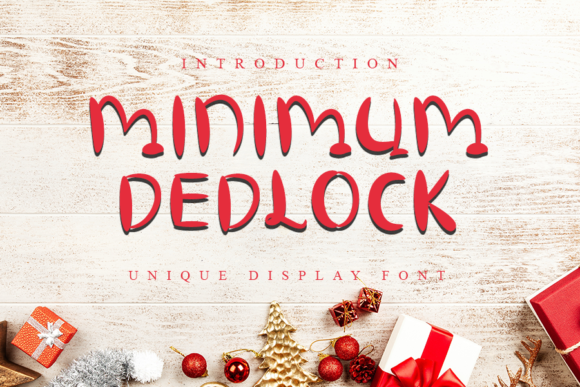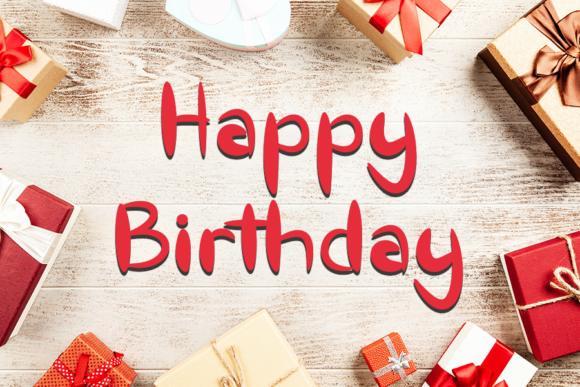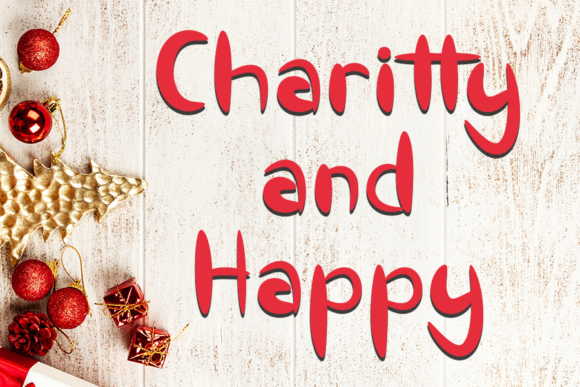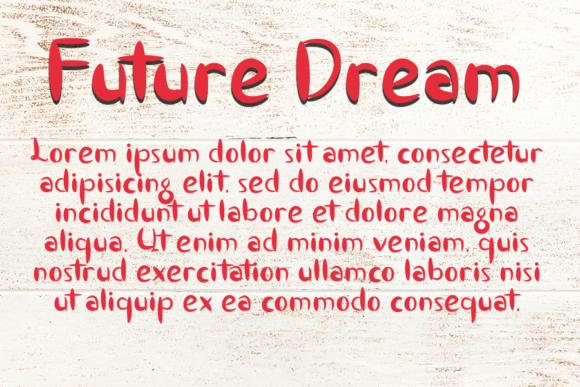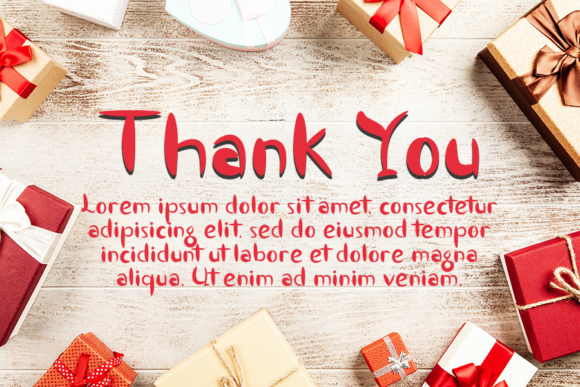
Minimum Dedlock Font
About Minimum Dedlock Font
Minimum Dedlock is a cute and quirky handwritten font. Colorful and friendly, this font is the perfect choice for a wide variety of creative ideas!